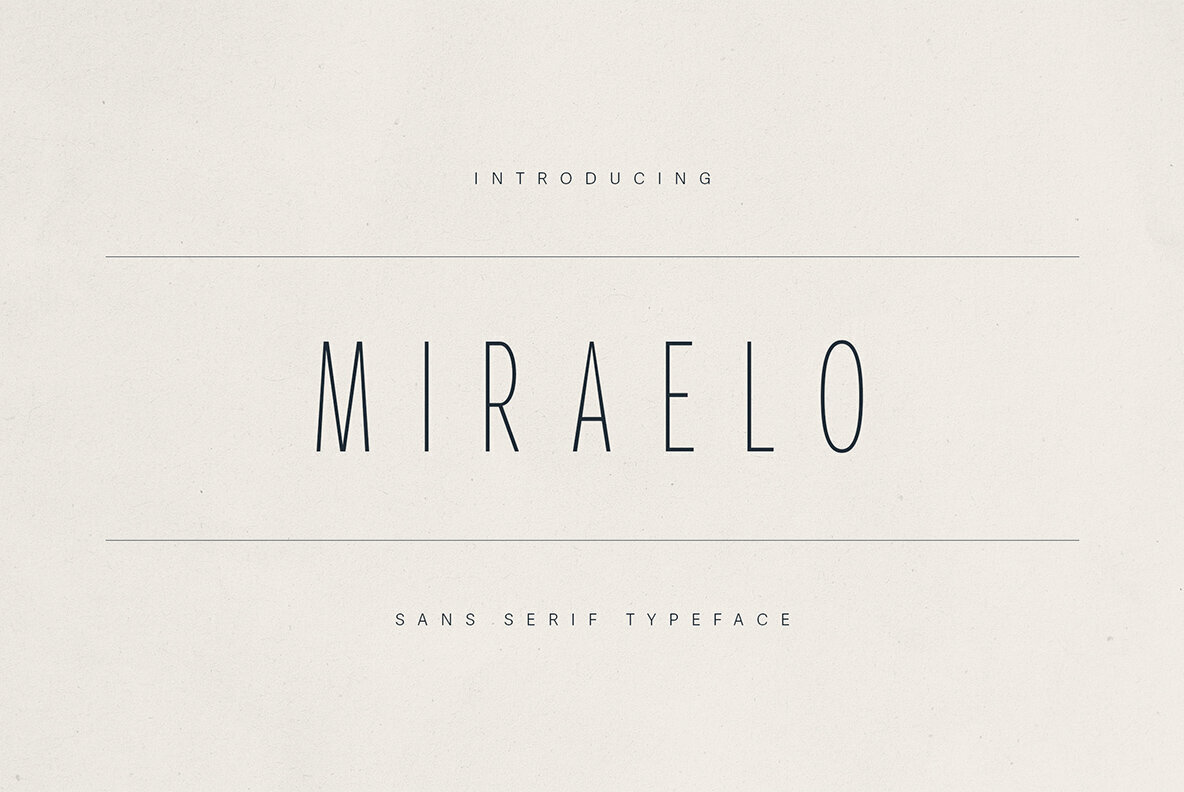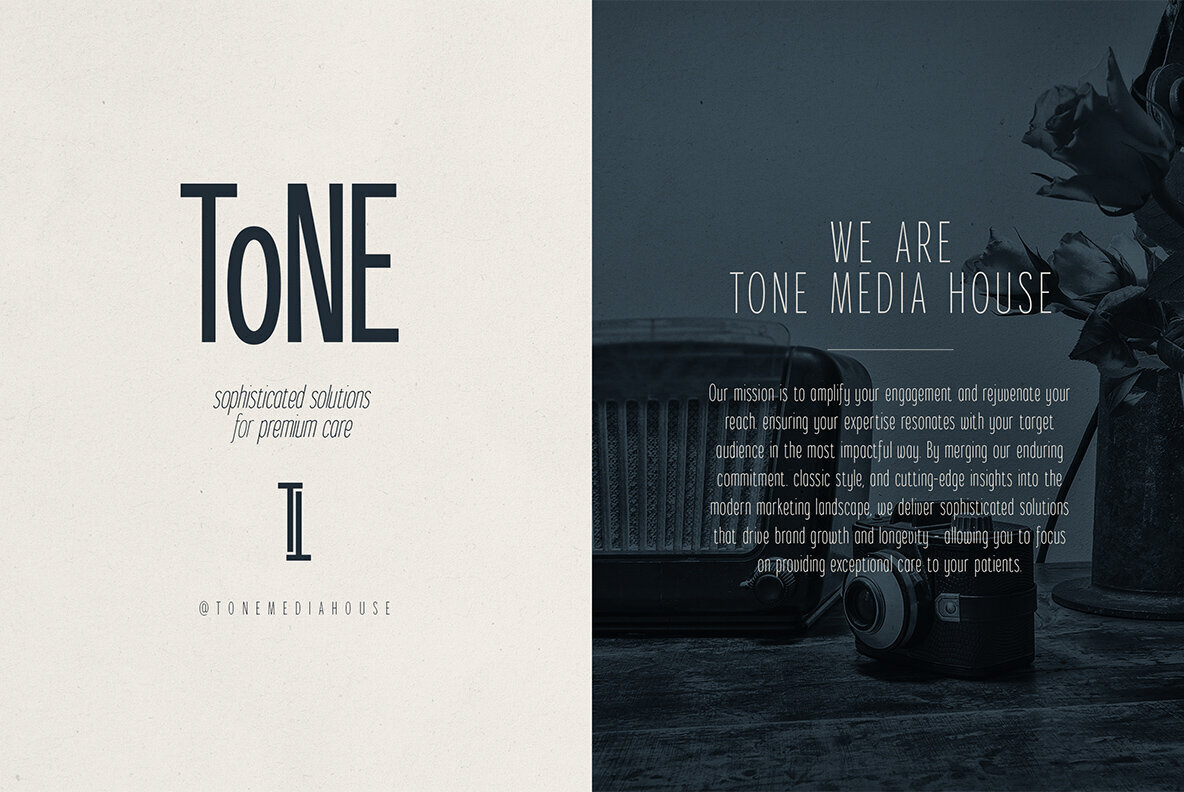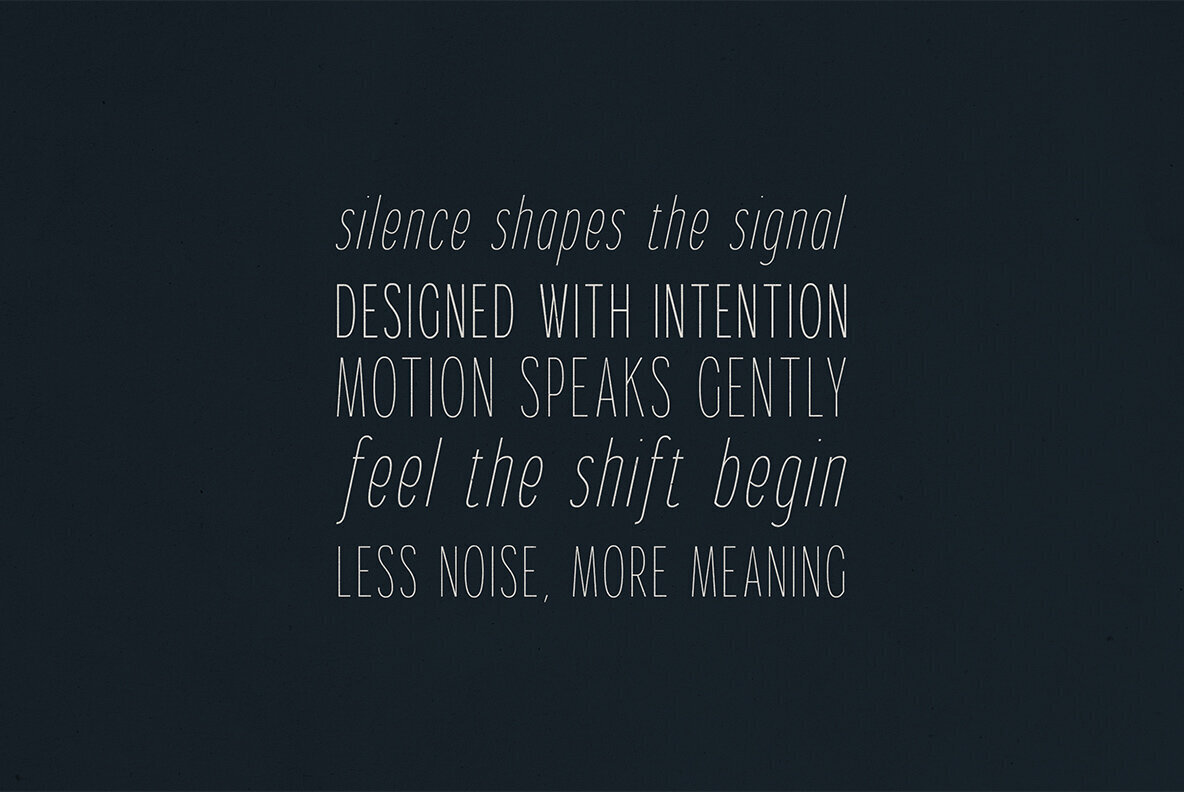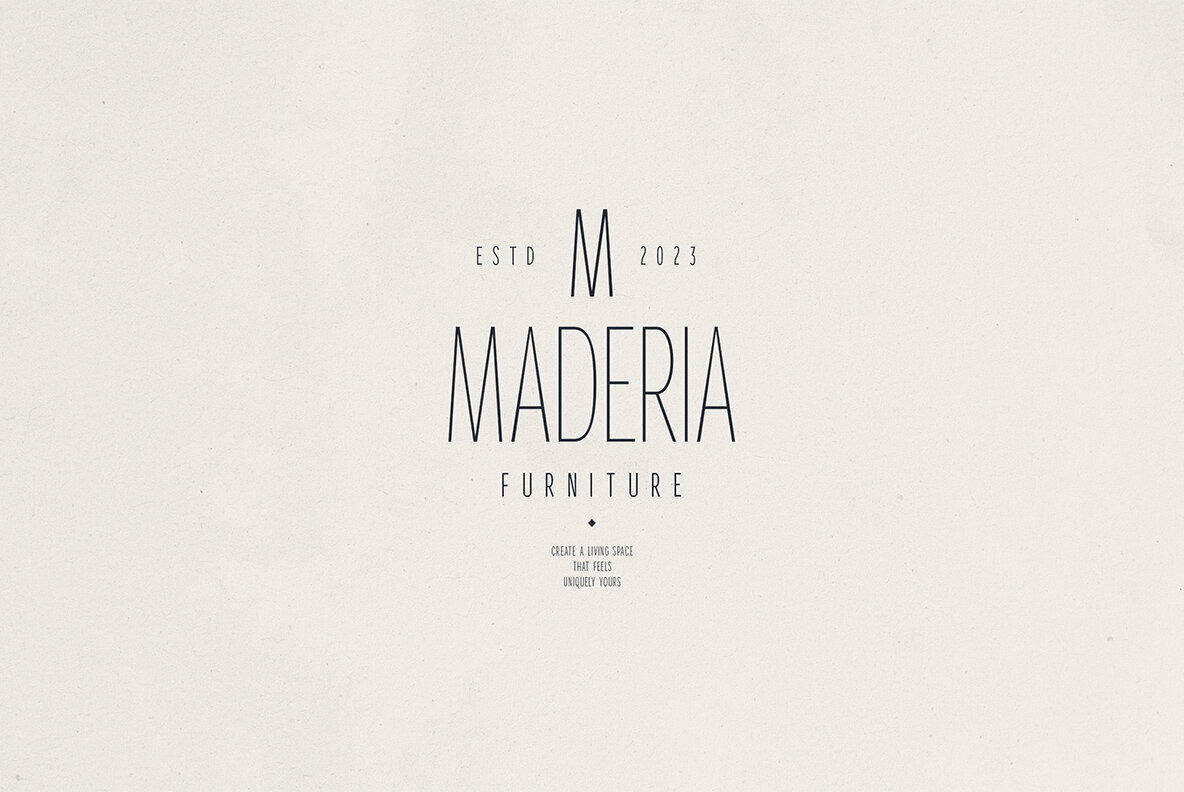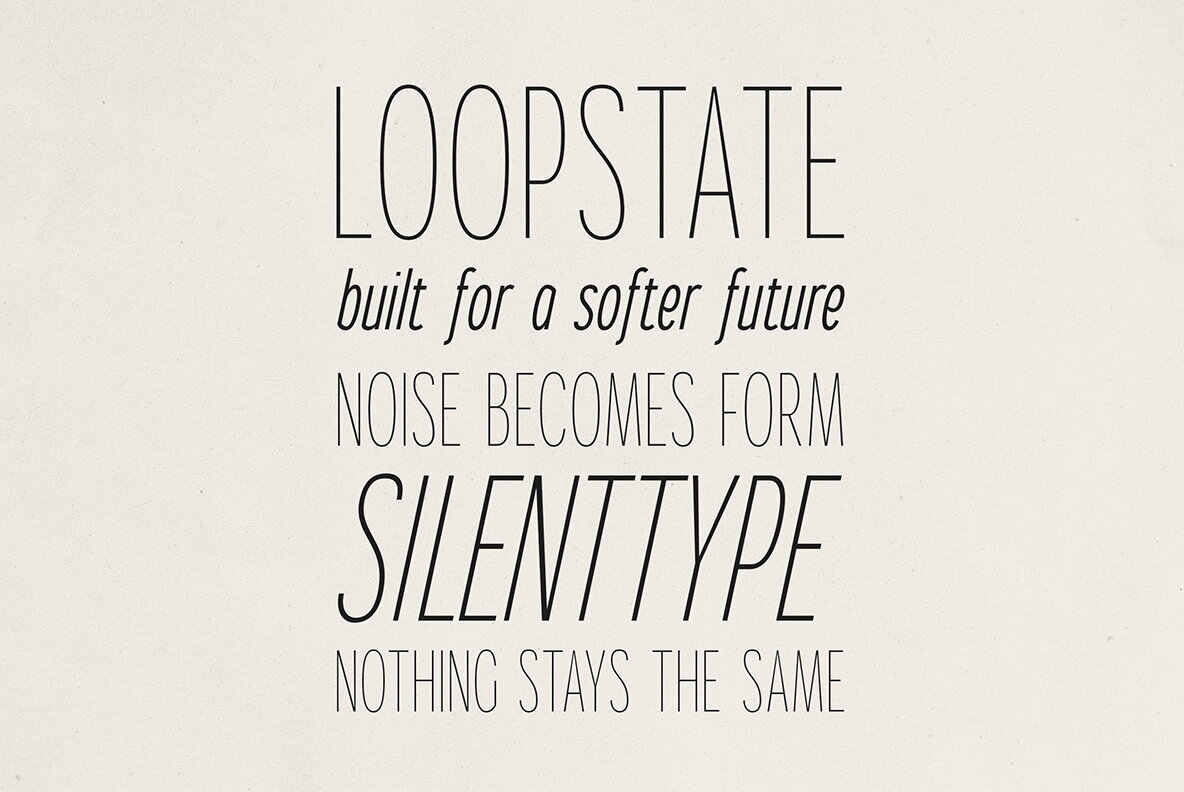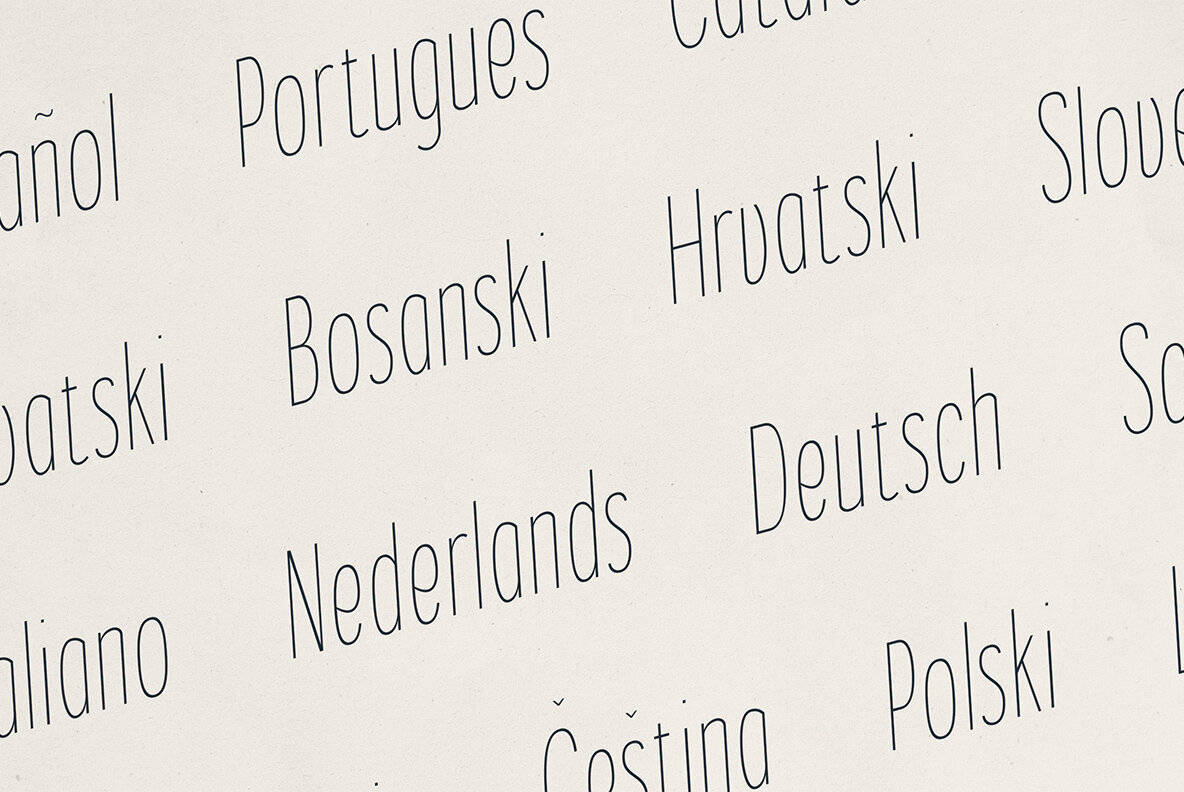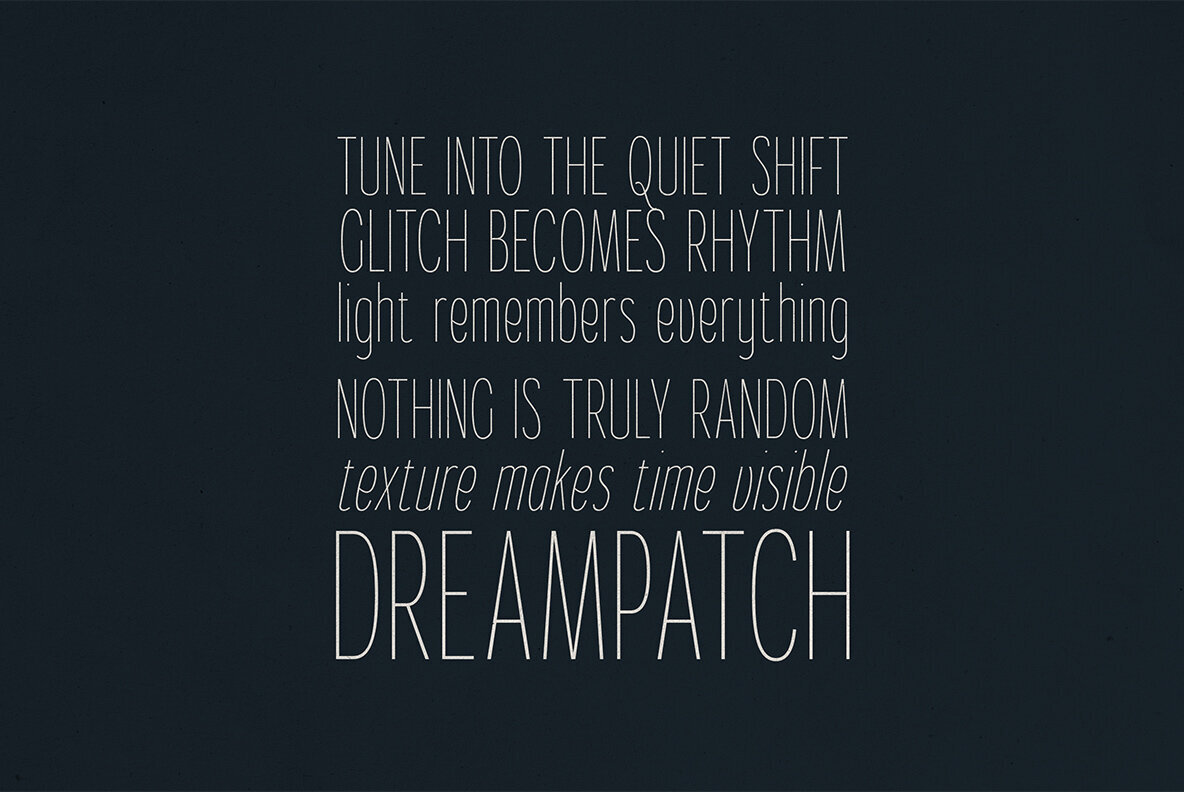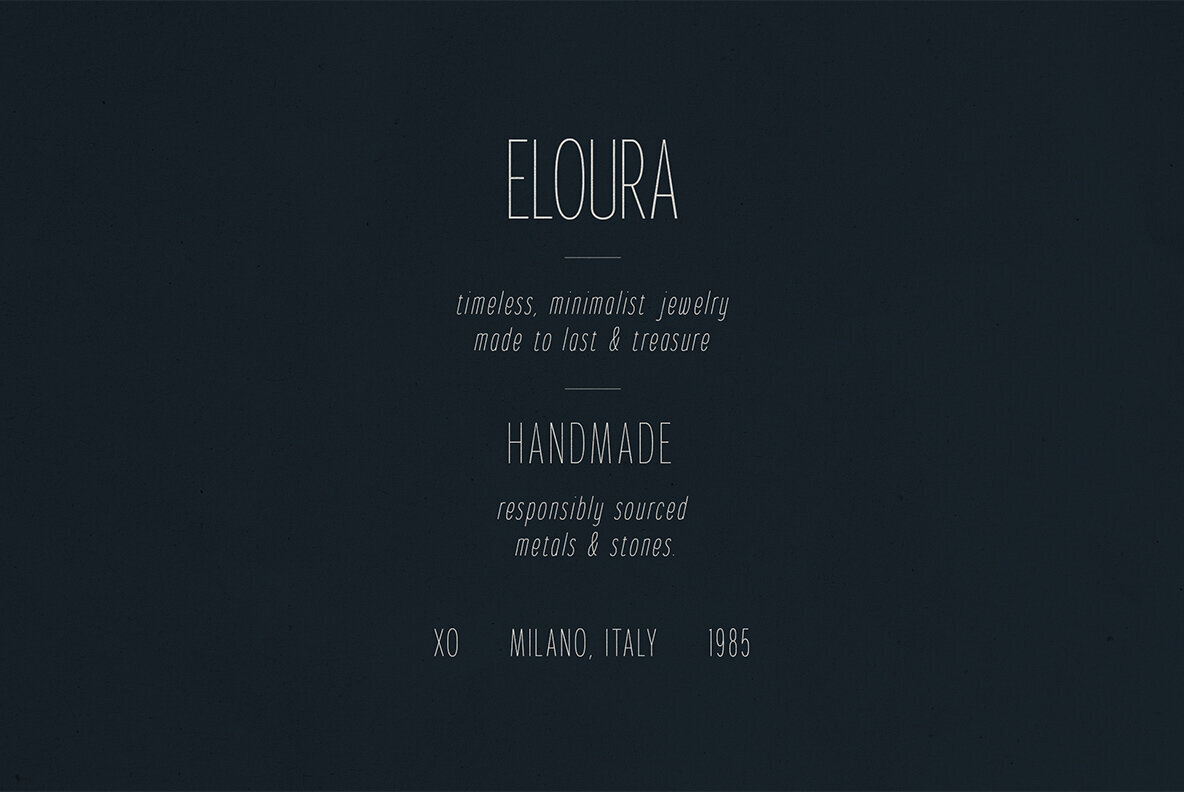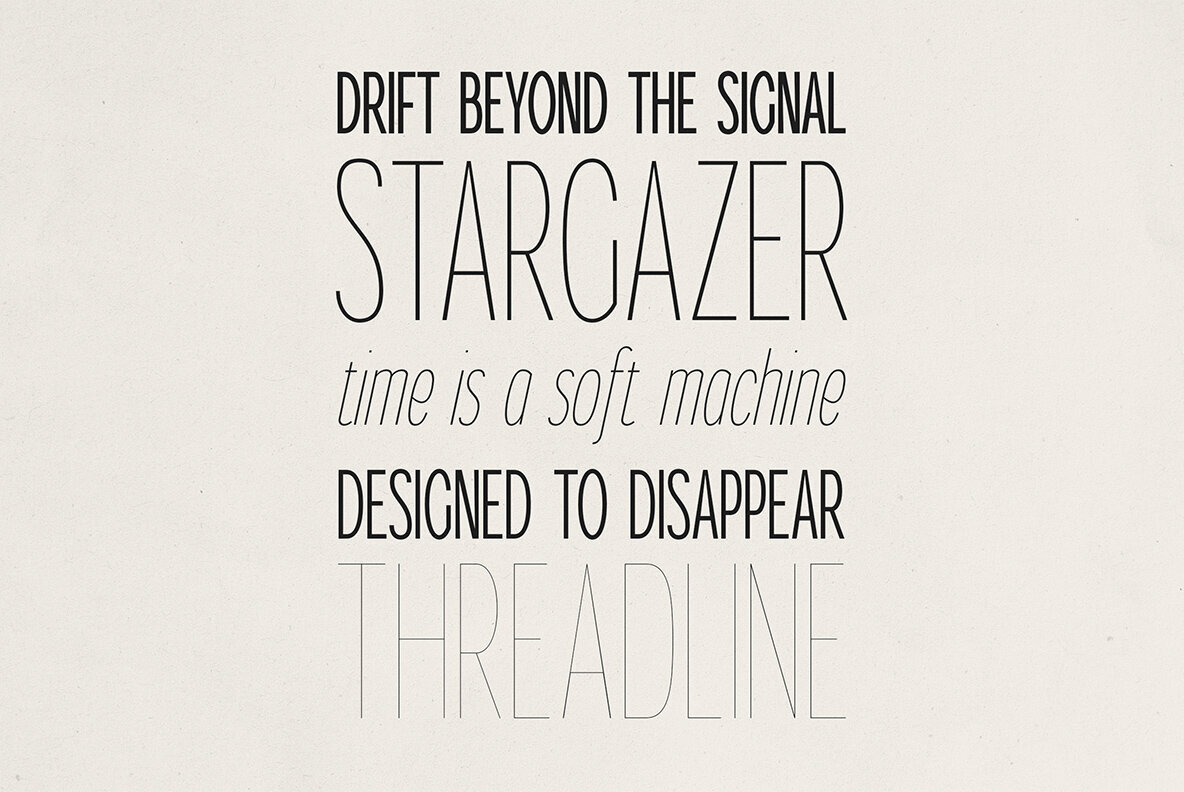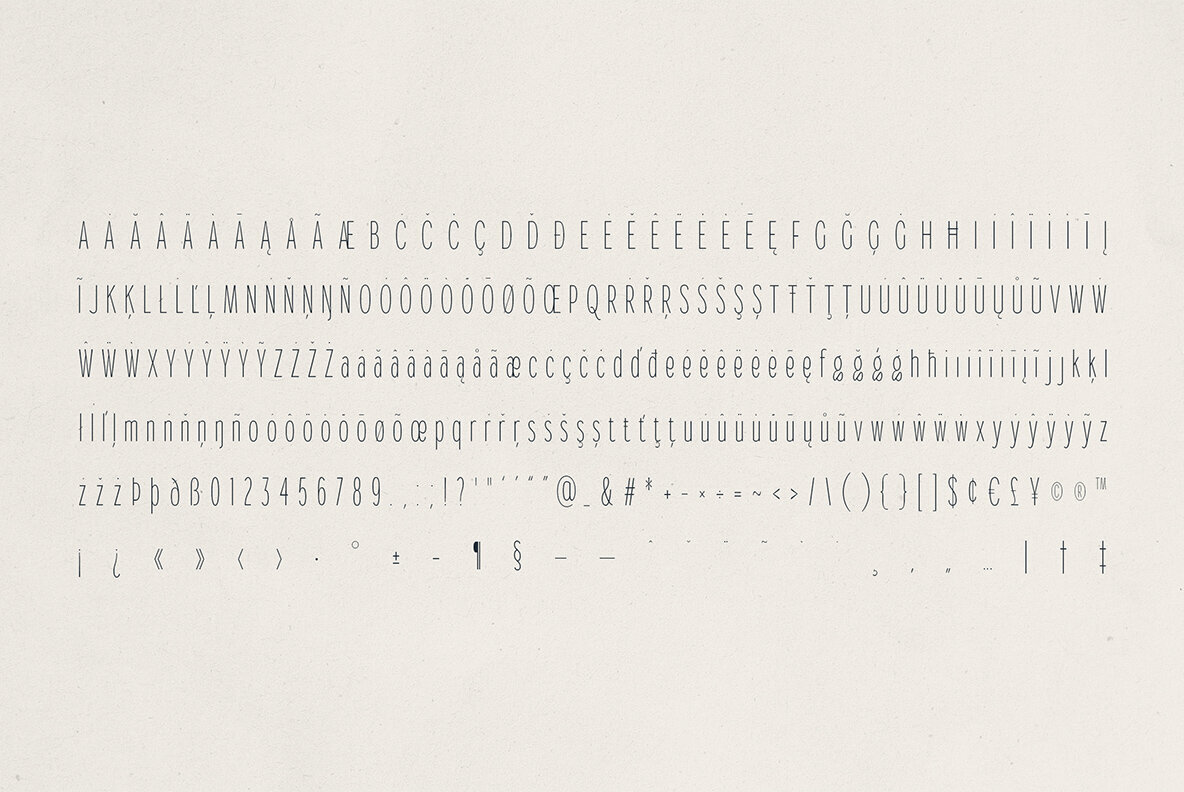
MIRALEO Font
Miraelo Thin
Miraelo Thin Italic
Miraelo Light
Miraelo Light Italic
Miraelo Regular
Miraelo Semi Bold
Miraelo Semi Bold Italic
Miraelo Bold
Miraelo Bold Italic
Miraelo Black
Miraelo Black Italic
Miraelo Italic
MIRALEO, the sophisticated sans serif typeface, is a must-have for designers and brands seeking both clarity and character. Featuring a minimalist stance paired with elegantly thin curves, MIRALEO exudes an aura of modern elegance and thoughtful restraint. Ideal for contemporary branding, editorial designs, and luxurious packaging, this font is perfect for digital content that requires a refined touch. Inspired by high-end fashion editorials, classic brand aesthetics, and nuanced art direction, MIRALEO adapts seamlessly to various projects. Use this versatile typeface for designing premium logos, crafting clean user interfaces, or developing magazine layouts filled with poetic elegance. Its striking presence in uppercase letters and spacious layouts makes it an excellent choice for sophisticated design work.Discover MIRALEO